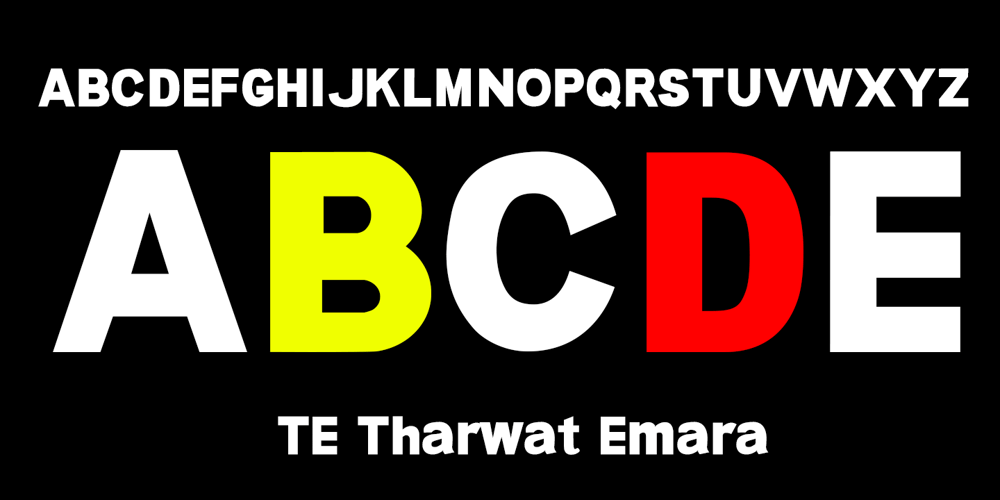
TE Tharwat Emara Font Family was designed by Tharwat Mohamed Emara and published by Tharwat Emara. TE Tharwat Emara contains 1 styles and family package options. TE THARWAT Emara Font โ where timeless elegance meets boundless creativity!Unleash the power of sophistication and versatility with TE THARWAT Emara, a font meticulously crafted to elevate your designs to new heights. With its captivating blend of Latin, Greek, Hebrew, and Turkish characters, this font isn’t just a typographic tool โ it’s a global statement of style.Step into a world where tradition meets innovation. TE THARWAT Emara isn’t just another font; it’s a masterpiece of design, meticulously sculpted to add a touch of class to every project. From captivating advertisements to elegant books, from dynamic magazines to stylish event invitations, this font effortlessly captures attention and sparks imagination.Dare to stand out from the ordinary and embrace the extraordinary with TE THARWAT Emara. It’s not just a font โ it’s a gateway to a world of endless possibilities, where every stroke tells a story and every curve evokes emotion. Let your designs speak volumes with the timeless elegance of TE THARWAT Emara